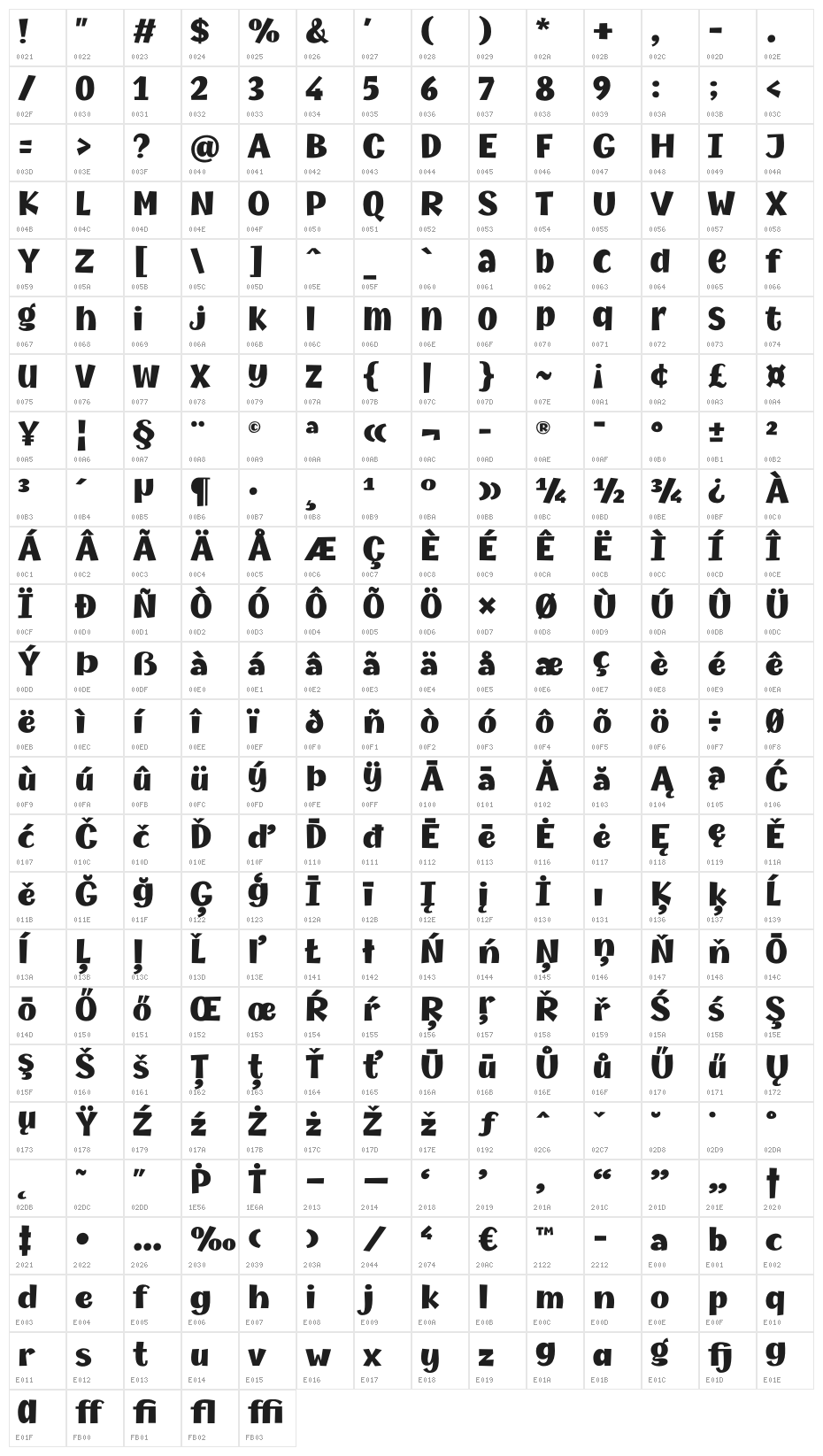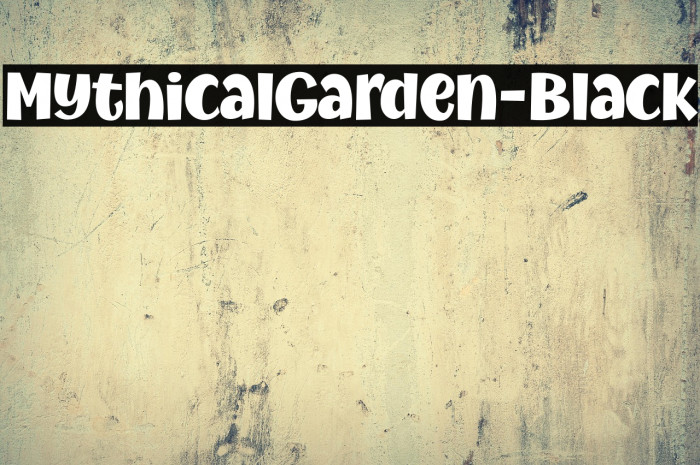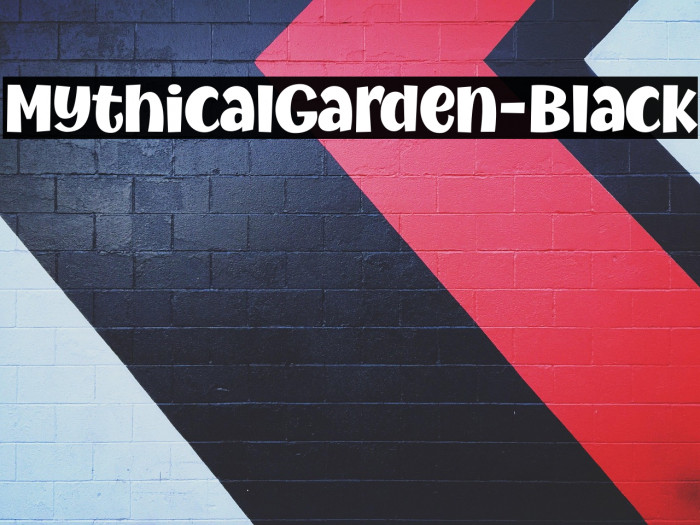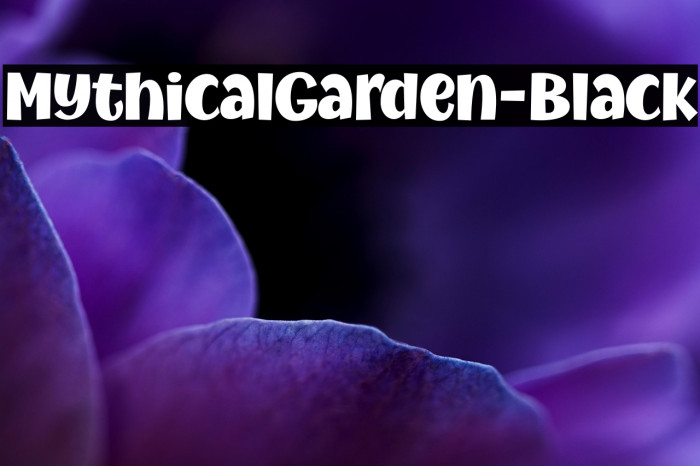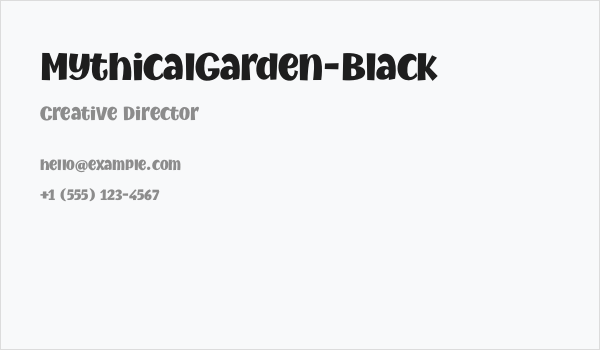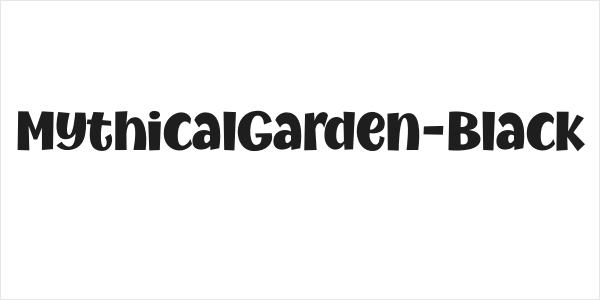
MythicalGarden-Black Font
MythicalGarden-Black Description
This font features a bold and playful design with a whimsical touch. The characters are thick and rounded, giving them a friendly and approachable appearance. The uppercase letters are slightly wider than the lowercase, adding to the font's playful nature. The numbers and special characters maintain the same boldness, ensuring consistency throughout. The strokes are uniform, with minimal contrast, contributing to a cohesive and solid look. This font is ideal for projects that require a fun and engaging aesthetic.
Overall StylePlayful, Whimsical
Proposed ProjectsPerfect for children's books, playful branding, posters, and creative advertising.